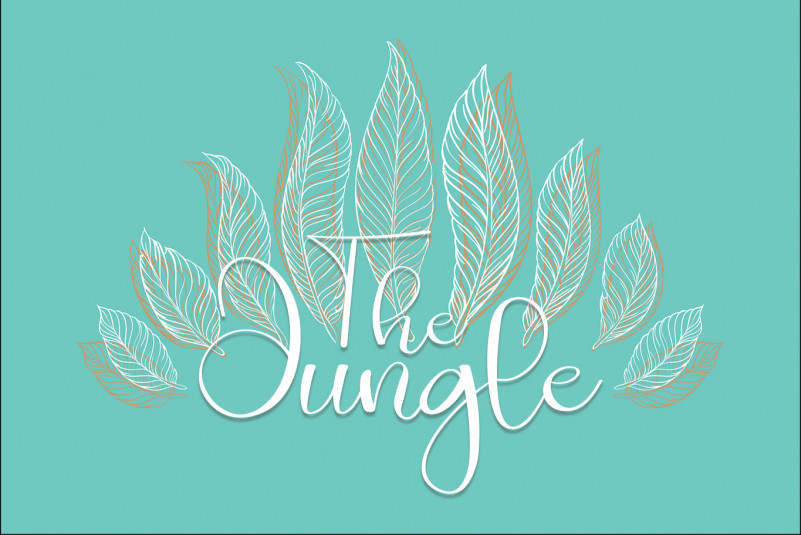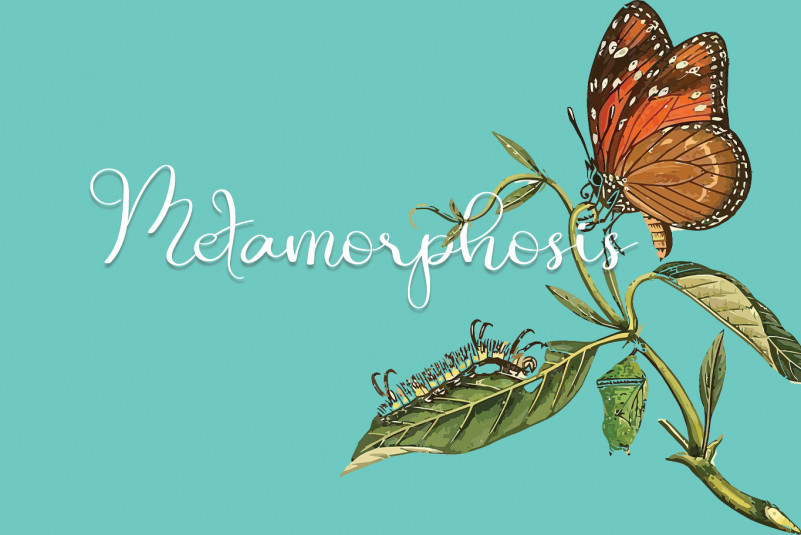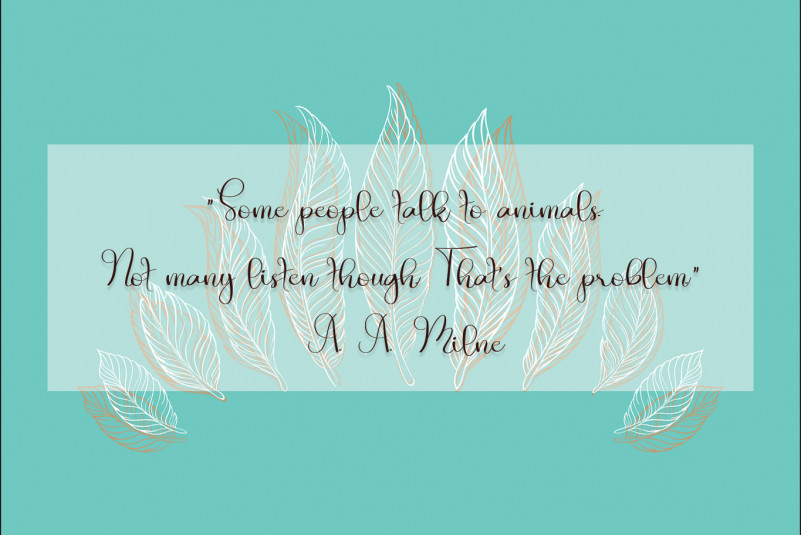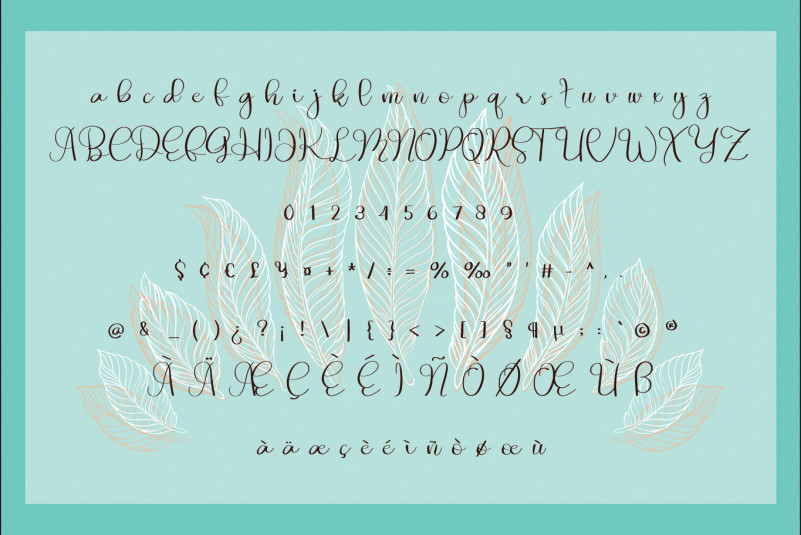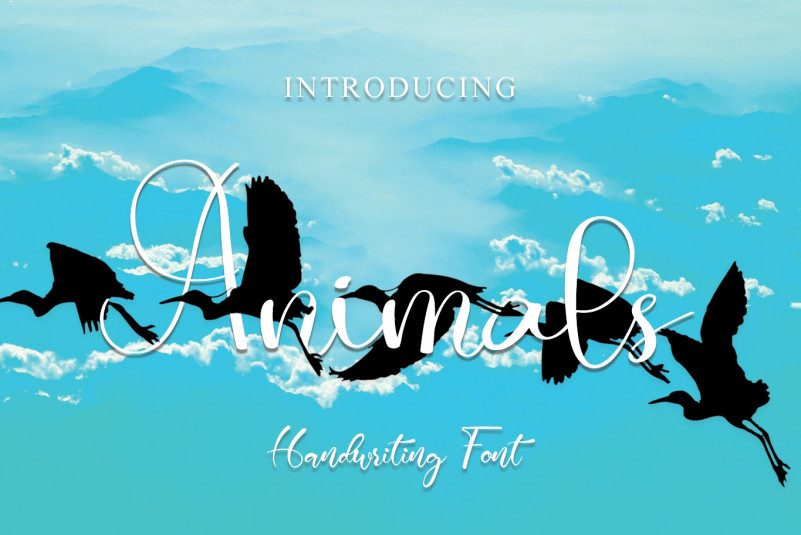
Animals Font
Animals Calligraphy Font
This is a fashionable script font. This font is neatly crafted and highly detailed. Whatever the topic, this font will be a wonderful asset to your font library, as it has the potential to enhance any creation.